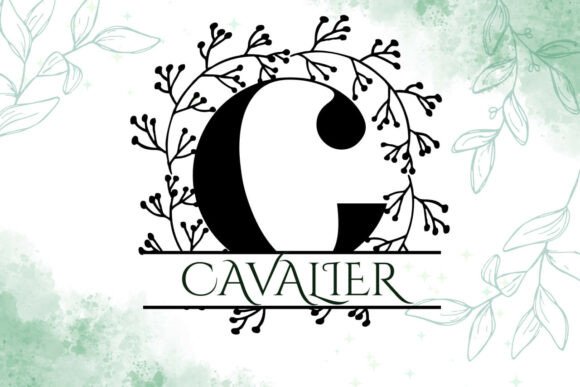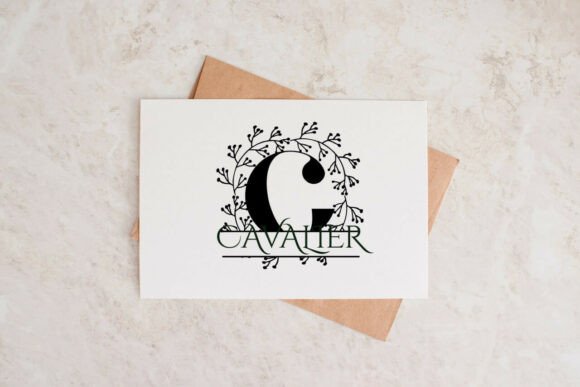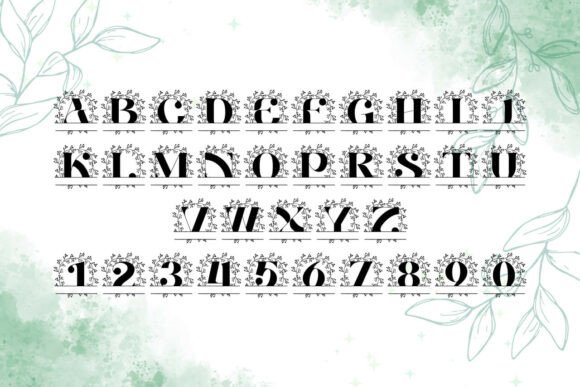
Introduction to Quillcrest Split Monogram Font
Have you ever been in the midst of a creative project, scrolling through design resources in search of the perfect font to elevate your work? The search can be overwhelming, especially when you’re looking for a high-quality, versatile font that can be used across various mediums. That’s where the Quillcrest Split Monogram Font comes in – a free download that’s sure to become your go-to design resource.
With its elegant, calligraphic letterforms and precise horizontal split, this font is perfect for creating poised, name-ready emblems in seconds. Whether you’re designing tiny tags, door hangers, or statement wall art, Quillcrest Split Monogram Font ensures that your designs look polished and refined, even with transparent backgrounds.
Key Features of Quillcrest Split Monogram Font
- Unique split monogram design perfect for creative projects and custom logos.
- Comes in a transparent background, allowing for seamless integration into various design elements.
- Perfect for branding, invitations, and other creative projects requiring a custom touch.
Honest Review: Quillcrest Split Monogram Font
I recently stumbled upon the Quillcrest Split Monogram Font, and I must say it’s been a fantastic addition to my design resource library. The high quality of this font is evident in its crisp lines and beautiful typography.
Here are some things that work well about the Quillcrest Split Monogram Font: ✨
- The transparent background makes it easy to customize and combine with other design elements.
- The font is versatile and can be used for a wide range of creative projects, from branding to editorial design.
- The design is elegant and sophisticated, making it perfect for high-end or luxury branding projects.
- The font is limited to monogram designs, which may not be suitable for all types of projects.
- The number of available styles and variations is relatively small compared to other fonts.
Overall, I’m very impressed with the Quillcrest Split Monogram Font. It’s a high-quality design resource that can add a touch of elegance to any creative project. While it may have some limitations, it’s definitely worth considering for designers looking for a unique and sophisticated font solution.
How to Use Quillcrest Split Monogram Font
The Quillcrest Split Monogram Font is a high-quality design resource perfect for any creative project. With its unique and stylish design, it’s ideal for adding a touch of elegance to your work.
– Use the font to create beautiful graphics and designs for your social media, blog, or website.
– Add the font to your designs to give them a professional and stylish look.
– Use the font to create presentations and documents that stand out from the crowd.
To get the most out of the Quillcrest Split Monogram Font, try the following:
- Use it on a transparent background to add depth to your designs.
- Combine it with other fonts to create a unique and stylish look.
- Experiment with different colors and layouts to find the perfect fit for your project.
The Quillcrest Split Monogram Font is perfect for a variety of projects, including:
- Social media graphics and blog posts
Alternatives to Quillcrest Split Monogram Font
Fontinata Monogram Font
Fontinata Monogram Font is a beautiful, elegant script font perfect for creative projects that require a touch of sophistication. It’s ideal for wedding invitations, branding, and high-end packaging. This font offers a free download option, making it a valuable resource for designers.
Compared to Quillcrest Split Monogram Font, Fontinata Monogram Font has a more refined and delicate appearance, making it suitable for projects that require a subtle, yet luxurious feel.
Monograma Sans Font
Monograma Sans Font is a modern, sans-serif monogram font that’s perfect for projects that require a clean and minimalist aesthetic. It’s ideal for business cards, brochures, and other marketing materials. This font offers a transparent background, making it easy to use with any design.
Compared to Quillcrest Split Monogram Font, Monograma Sans Font has a more contemporary and edgy feel, making it suitable for projects that require a bold and modern look.
Yes, the Quillcrest Split Monogram Font has a transparent background, making it perfect for use on custom backgrounds or overlays. Simply import the font into your design software and set the background to transparent.